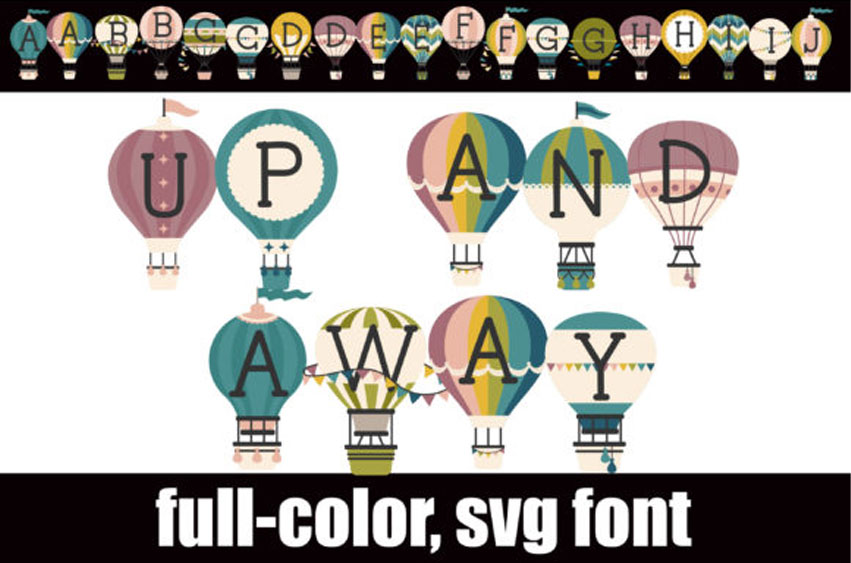
Up and Away Font
Up and Away Font is a full-color font featuring heavy black serif lettering in hot air balloons. It embodies playfulness and authenticity and is the perfect choice for any children’s activity or school project.